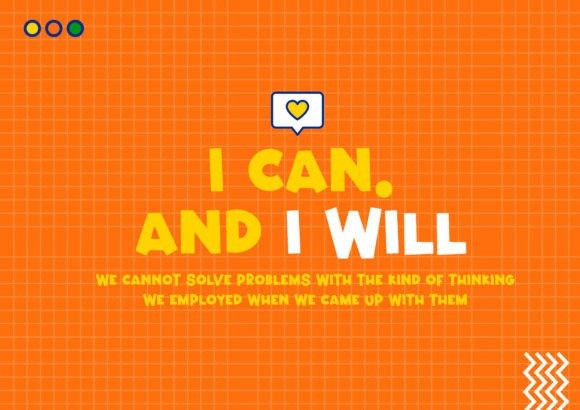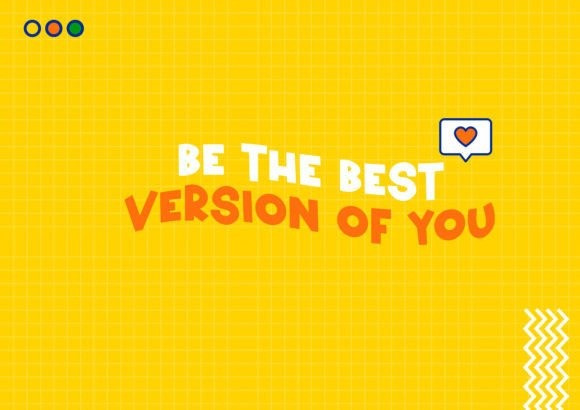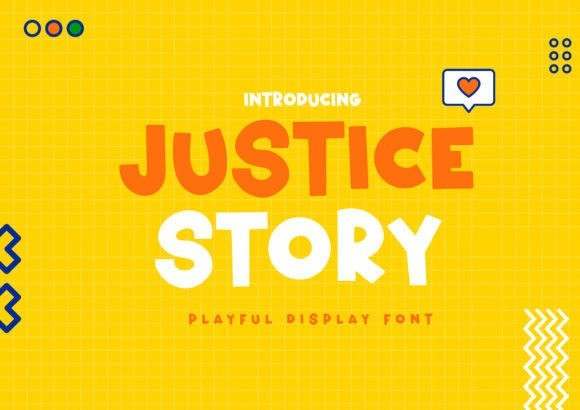
Justice Story Font
Justice Story Display Font is a whimsical and bold display font. It has a fun and cool vibe, making it great for crafting, titles, displays, and more. This original look will appeal to a wide range of crafty ideas, from letterheads and titles to stationery.